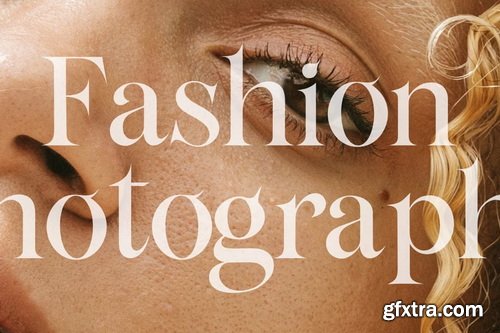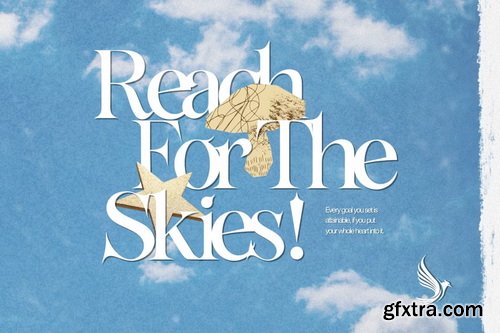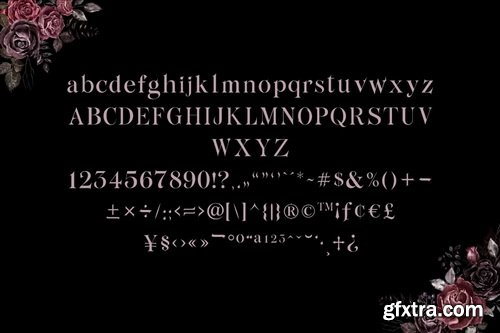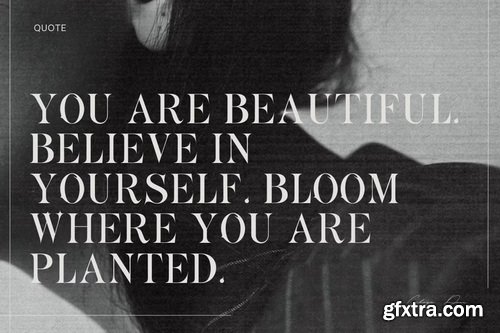
CreativeMarket - Thornelia Modern Gothic Serif Font
Say hello to Thornelia, a high-contrast serif font with a touch of gothic romance and modern elegance. Designed to make every word feel like a statement, Thornelia combines sharp edges, flowing curves, and delicate ligatures to give your designs a bold, editorial personality. Whether you're crafting a fashion brand, designing an album cover, or creating dreamy quote graphics, Thornelia brings a poetic yet powerful presence to your work. The font is especially beautiful for large headings, magazine layouts, packaging, wedding designs, or any creative project that needs a little drama and grace.